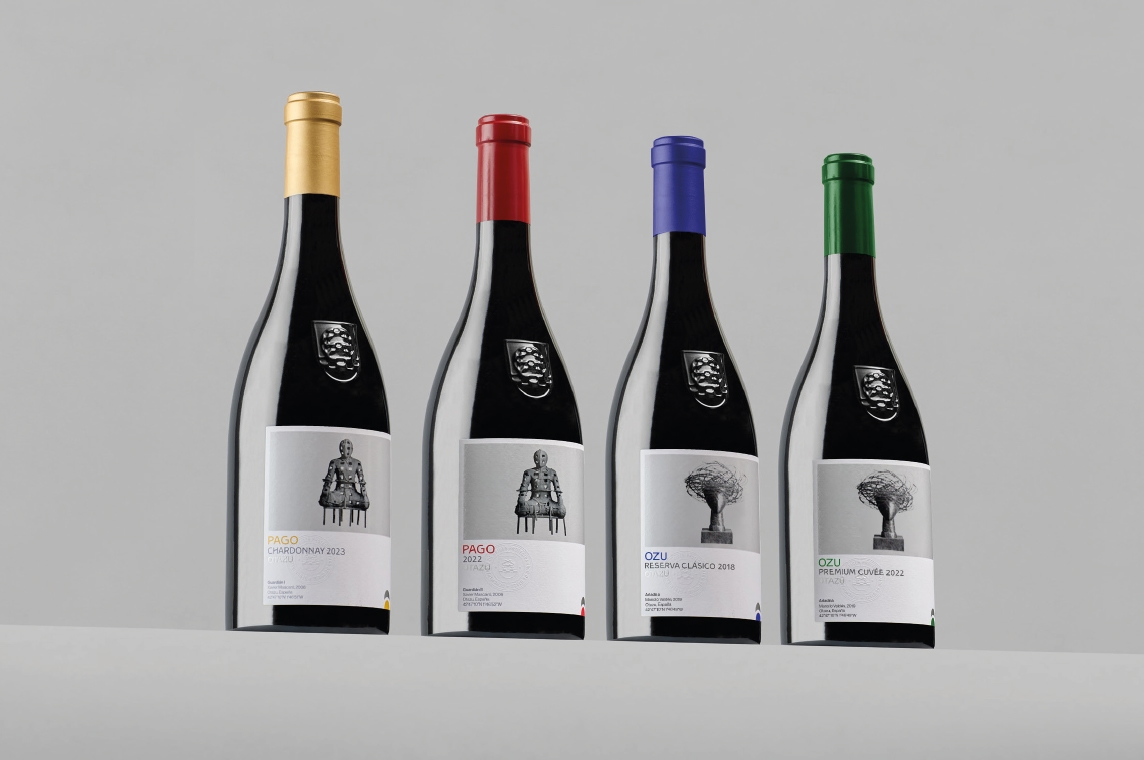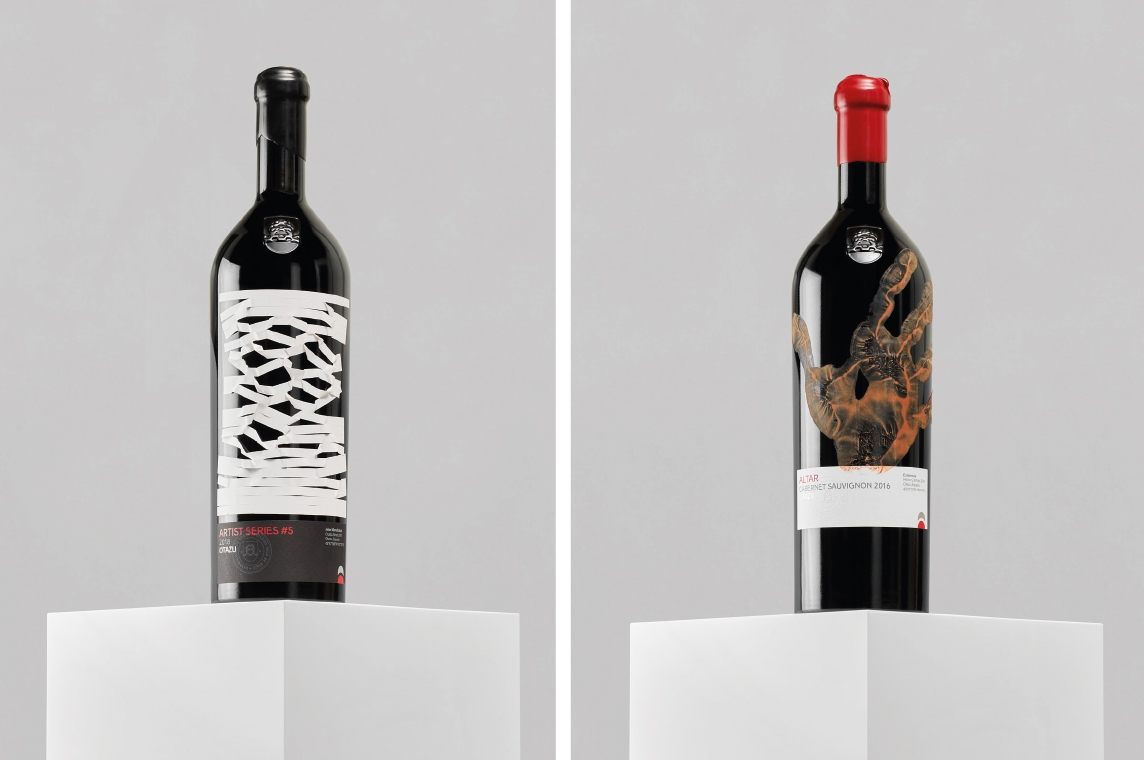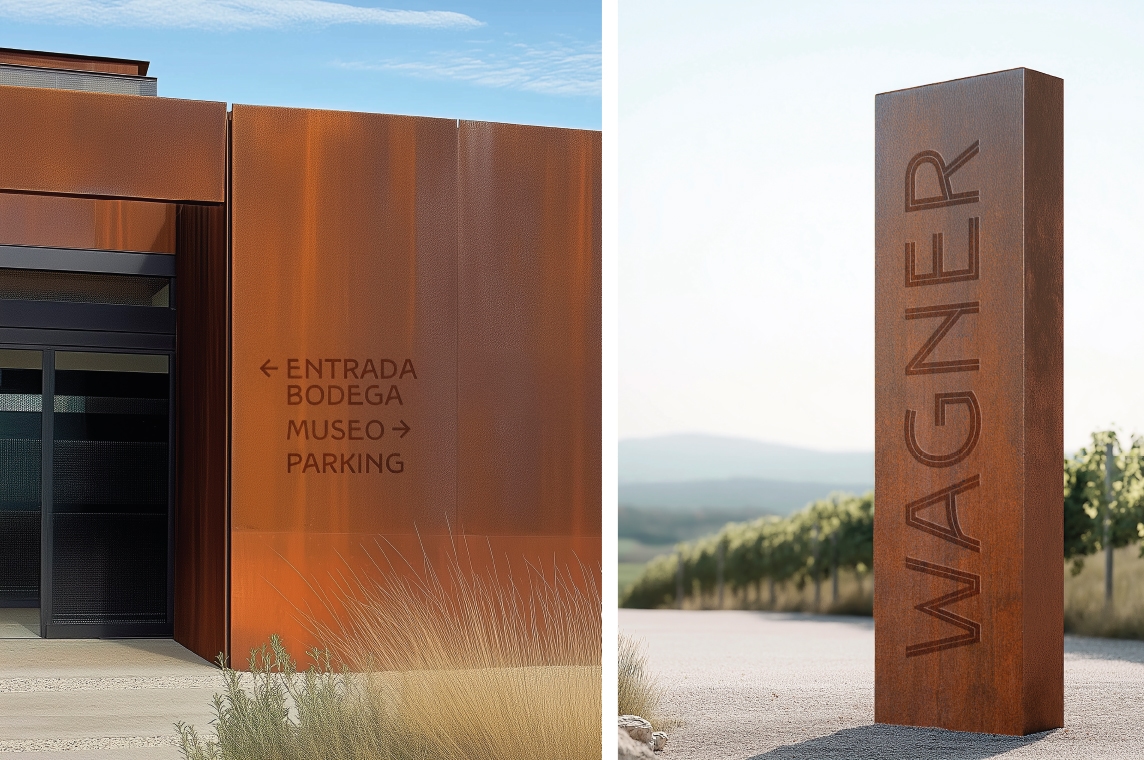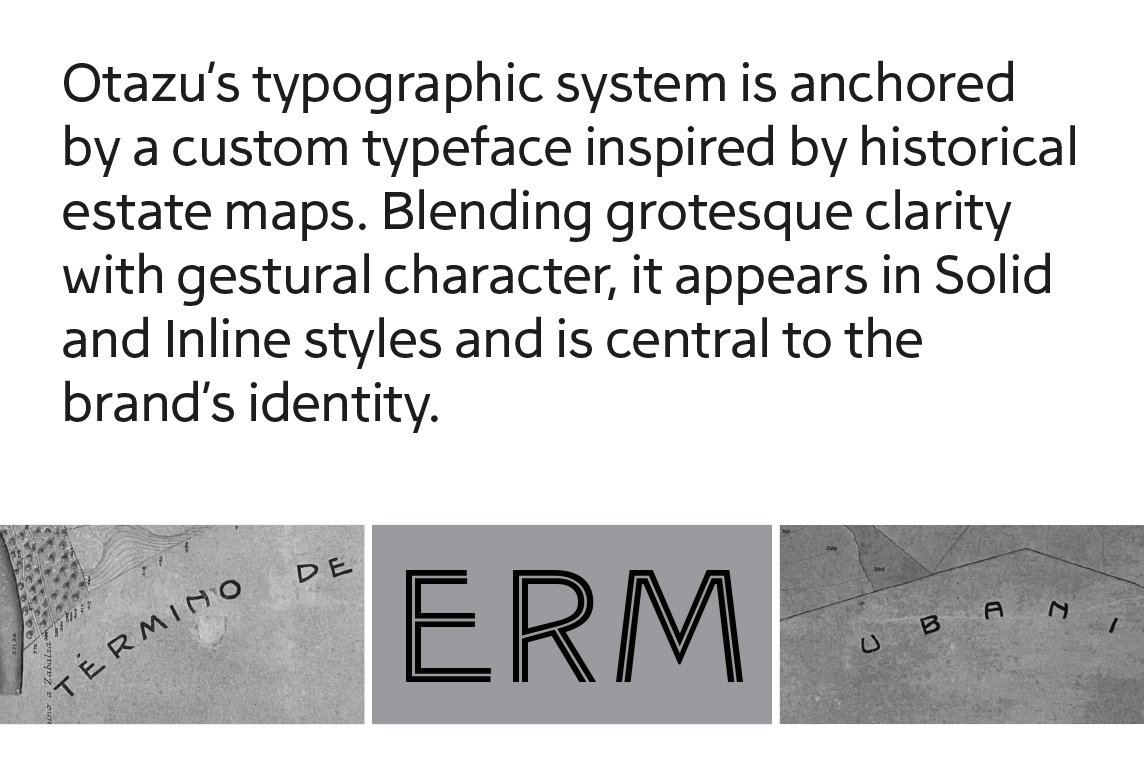
Otazu is the northernmost vineyard in Spain with D.O.P. Pago designation. It is located just eight kilometers from Pamplona, nestled between the Sierra del Perdón and the Sierra del Sarbil. Otazu’s typographic system is anchored by a custom typeface inspired by historical estate maps. Blending grotesque clarity with gestural character, it appears in Solid and Inline styles and is central to the brand’s identity.